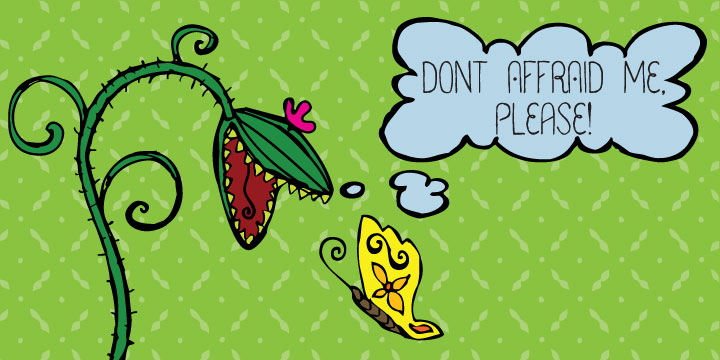
Blooming Deco
Blooming
About Blooming Font Family
Naive handmade font with numerous ligatures and alternatives. Plus symbol font with patterns, frames, balloons and other decorative elements.